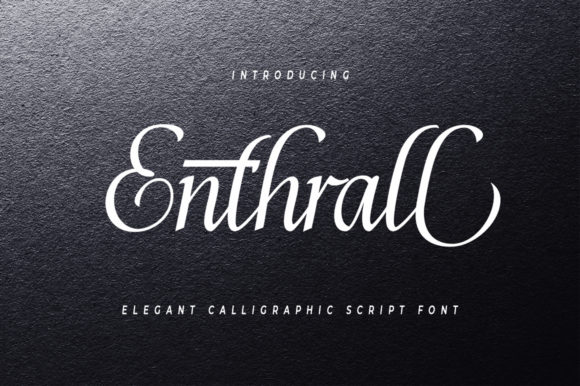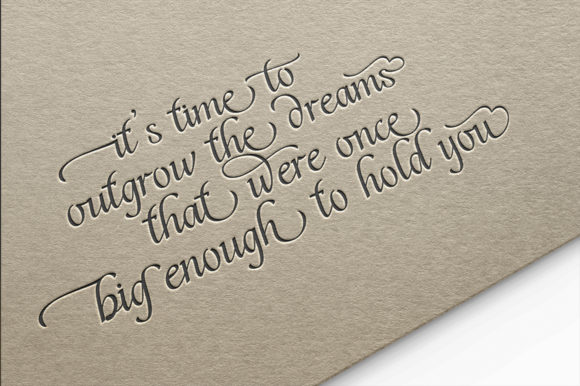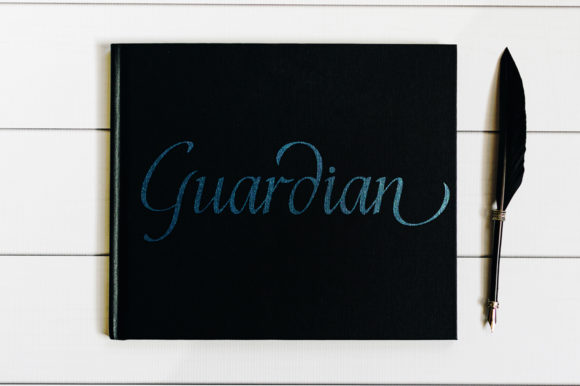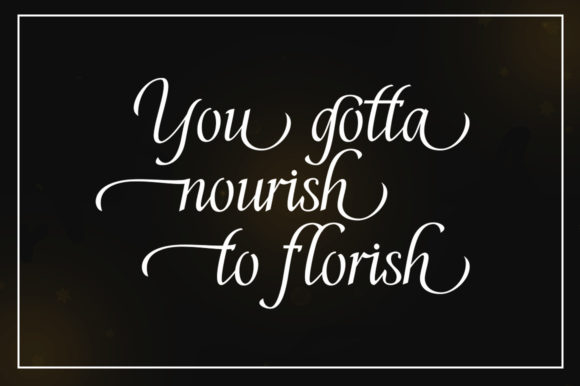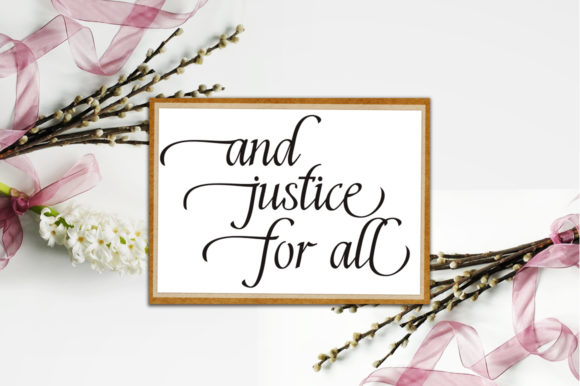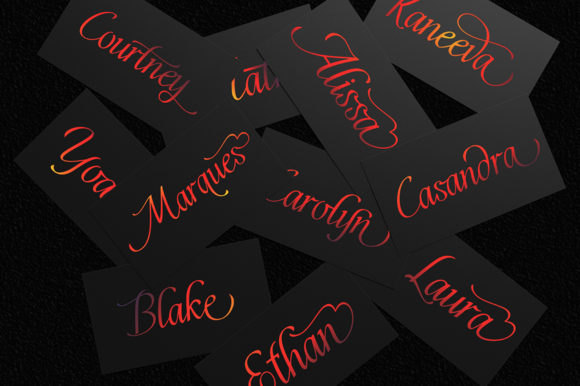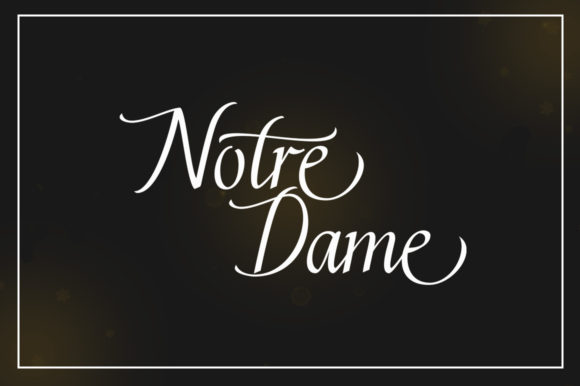
Enthrall Font
About Enthrall Font
Enthrall is a dazzling script font that comes with seductive alternates characters. Get creative with this sophisticated typeface!